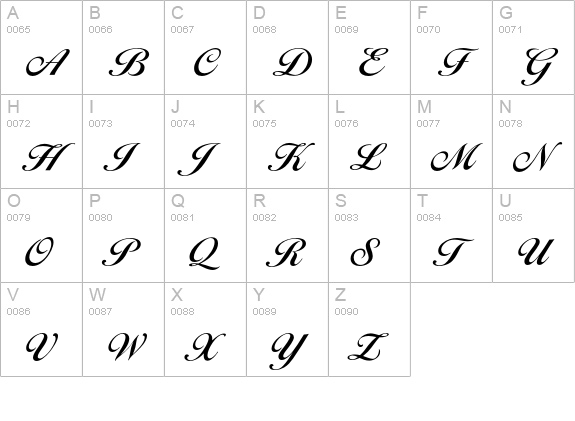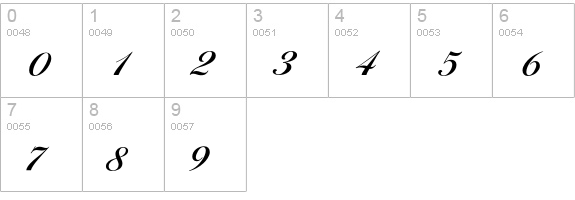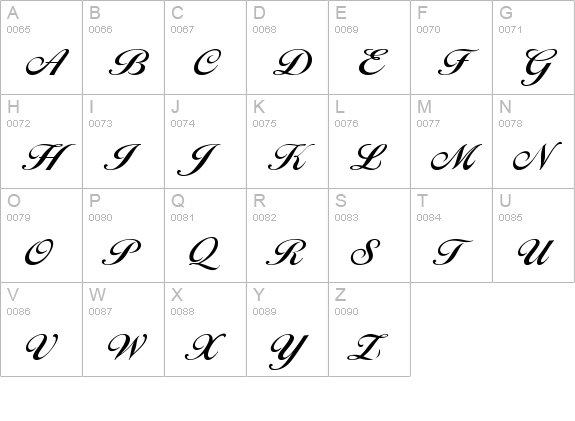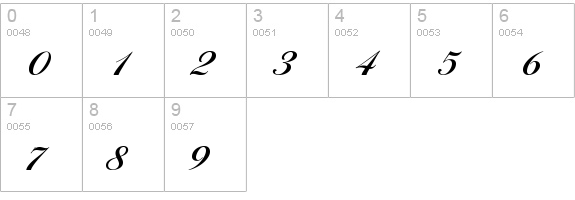
BallantinesScriptEF-DemiBold Font Details
BallantinesScriptEF-DemiBold is a sub-bold, structured variant in the BallantinesScriptEF typeface family \xE2\x80\x94 well suited to sub-headlines and emphasised passages.
BallantinesScriptEF-DemiBold is a stylish and elegant font that exudes sophistication and charm. With its beautifully crafted cursive style, this font is perfect for adding a touch of luxury to any project. The bold and distinctive letterforms make a statement while maintaining a sense of grace and fluidity. What sets BallantinesScriptEF-DemiBold apart is its versatility - it is equally suitable for formal invitations, branding materials, or elegant packaging designs. The font's timeless appeal is sure to make any project stand out and leave a lasting impression on viewers. And the best part? BallantinesScriptEF-DemiBold is available for free download at FontsMarket.com. So why wait? Add a touch of elegance to your next project with this exquisite font today.